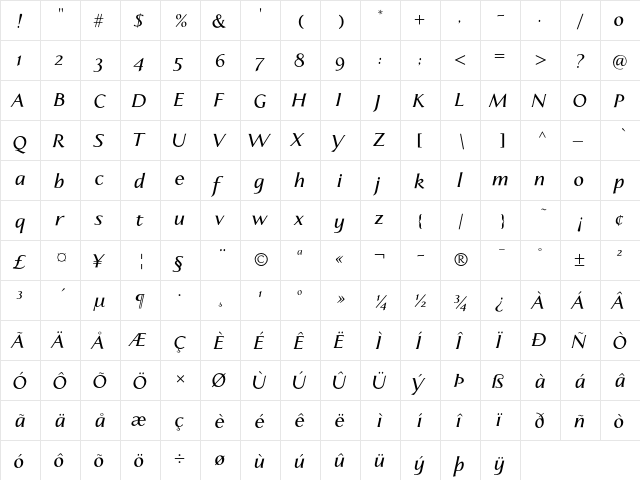
Aperto SemiBold Italic
Design Context for Aperto SemiBold Typeface
Aperto SemiBold is a composed and adaptable typeface that performs quietly and consistently across a wide range of design contexts. The slanted form adds forward momentum and visual energy. Its bold stroke weight gives it real presence on the page.
Pro Tip: Use Aperto SemiBold for emphasis, pull quotes, and subheadings where its slanted energy can add rhythm to the layout.